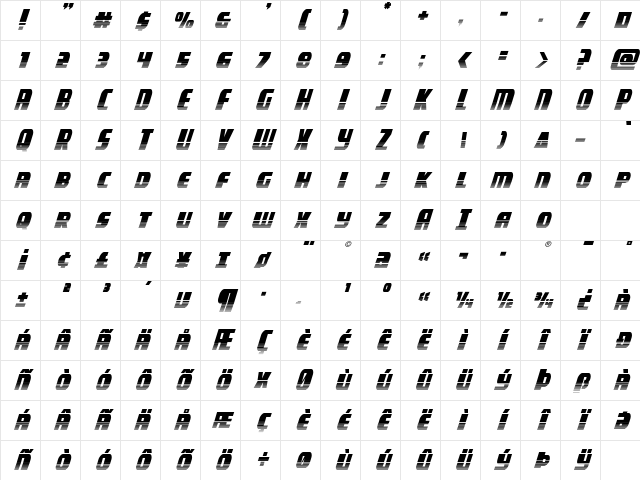
Complete Camp Justice Halftone Italic Italic glyph index. Displaying only characters natively supported by Camp Justice Halftone Italic Italic font.
Camp Justice Halftone Italic is a composed and adaptable typeface that performs quietly and consistently across a wide range of design contexts. The slanted form adds forward momentum and visual energy.
Pro Tip: Use Camp Justice Halftone Italic for emphasis, pull quotes, and subheadings where its slanted energy can add rhythm to the layout.